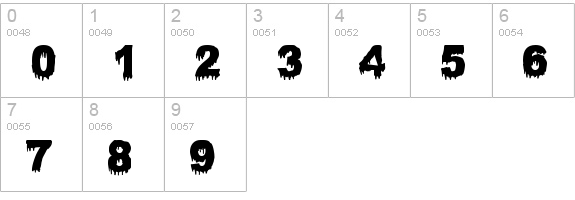
Bloody Stump Font Details
Bloody Stump font is a bold and striking typeface that exudes a sense of horror and mystery. With its jagged edges and rough appearance, this font is perfect for Halloween-themed designs, horror movie posters, and any project that requires a touch of the macabre. The uneven letter shapes and dripping blood-like details give Bloody Stump font a truly unique and chilling aesthetic. The best part? Bloody Stump font is completely free to download at FontsMarket.com! Embrace your dark side and bring your designs to life with this eerie and captivating typeface. Let Bloody Stump font add a spooky twist to your projects and leave a lasting impression on your audience. Download it now and unleash the terror of this haunting font!